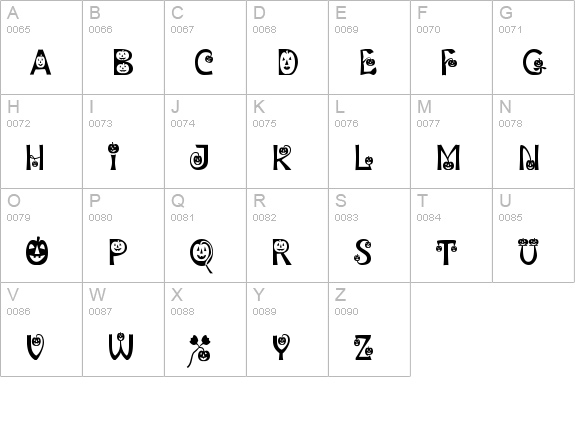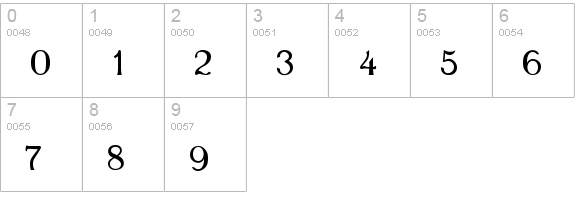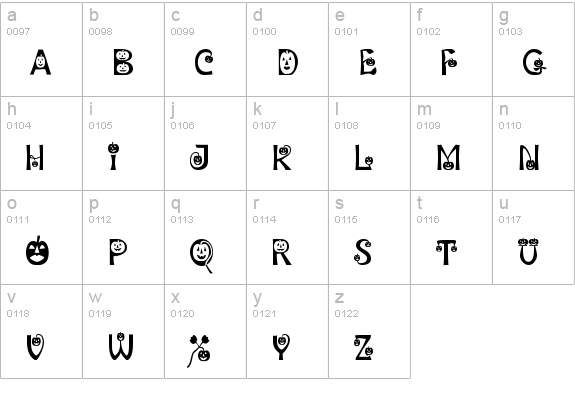
HeyPumkin Font Details
HeyPumkin font is a charming and whimsical typeface that exudes a playful and friendly vibe. Its round and bubbly letters give off a warm and inviting feel, perfect for adding a touch of fun to any design project. Whether you're creating greeting cards, posters, or social media graphics, HeyPumkin font is sure to bring a smile to your audience's face. Best of all, HeyPumkin font is available for free download at FontsMarket.com. This means you can easily access this delightful font and use it in your projects without any cost. So go ahead and give your designs a fresh and cheerful look with HeyPumkin font today!